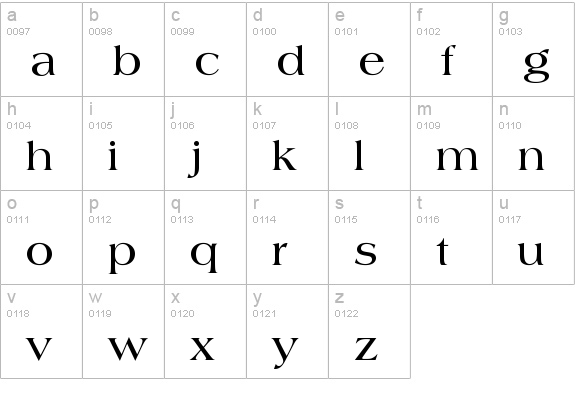
Americana T Bold is a strong, high-contrast variant in the Americana typeface family \xE2\x80\x94 well suited to headlines, attention-grabbing titles, and strong calls-to-action.
Americana T Bold is a versatile and robust font that exudes a classic American charm. Its bold and distinctive letterforms make it perfect for adding a touch of Americana nostalgia to your designs. Whether you're creating posters, banners, or branding materials, Americana T Bold will make a bold statement. This font is available for free download at FontsMarket.com, giving you easy access to this timeless typeface. With its strong presence and timeless appeal, Americana T Bold is sure to become a favorite in your font library. Add a touch of Americana flair to your projects with this free download of Americana T Bold from FontsMarket.com.